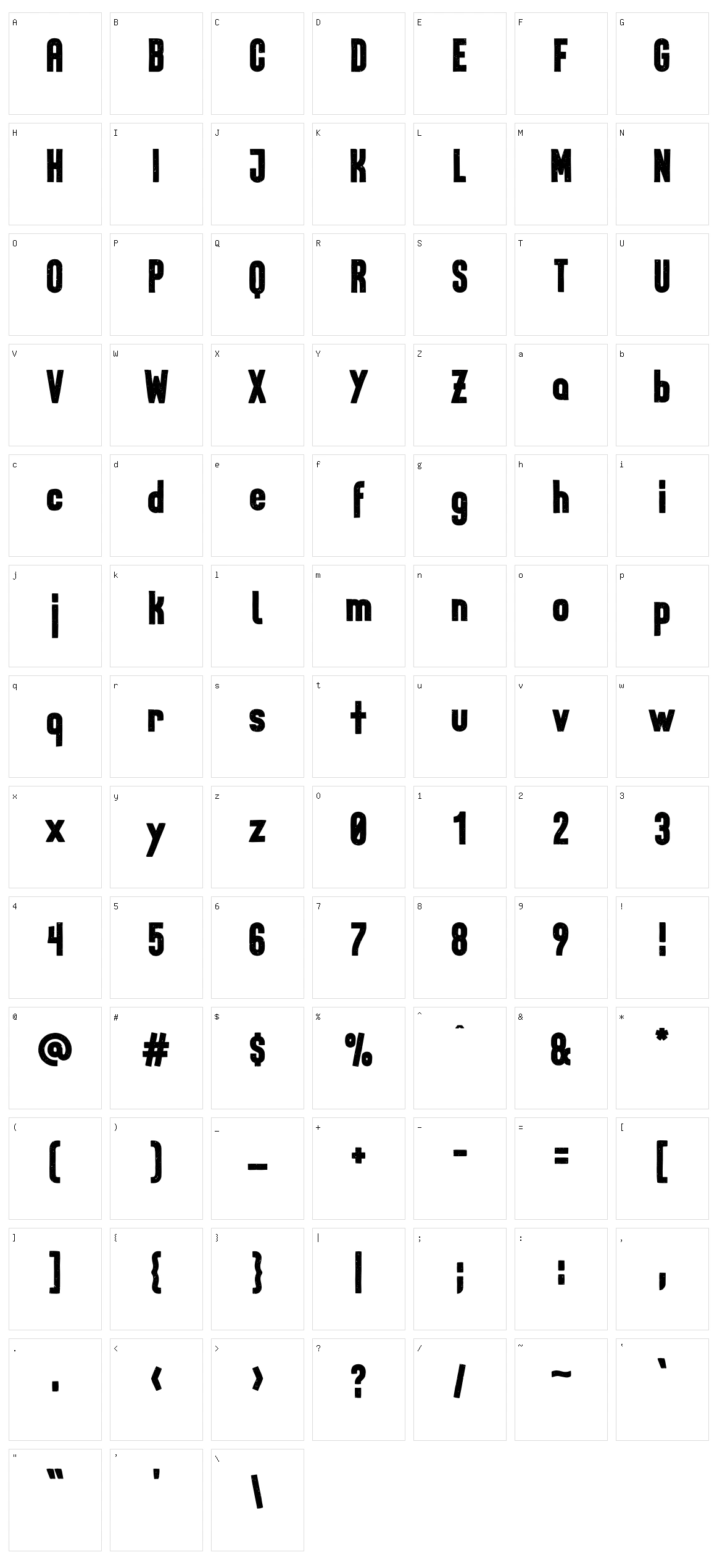
the font ROAMER BOLD is 100% handmade with love, sweat and tears.
It's my first multilingual font and I'm proud to share it with the world.
It's big, it's bold, it's rough, ready to get out there and be seen.